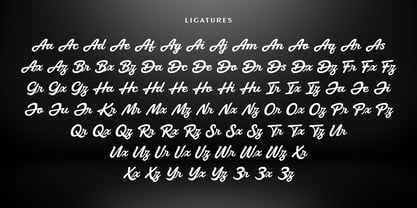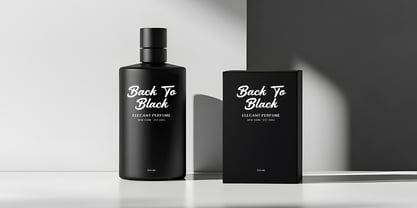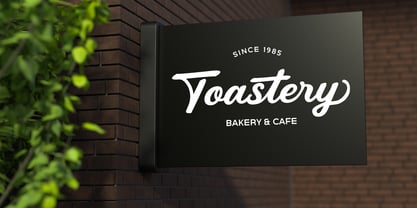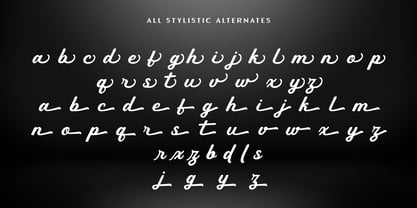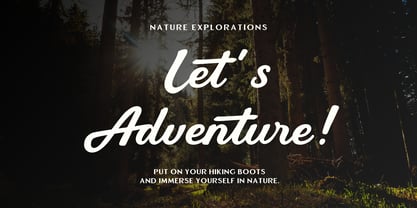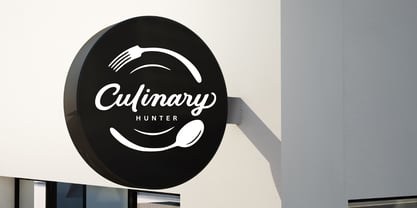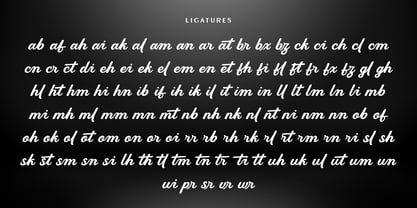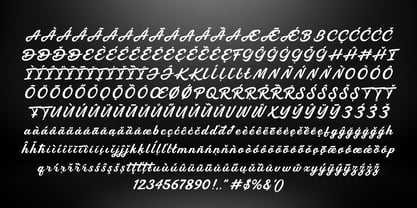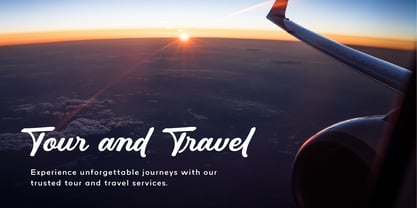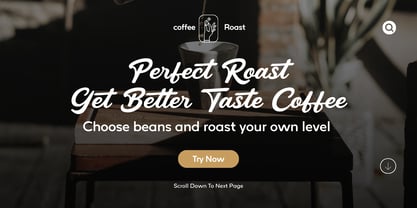
Regaltion Highter
Regaltion Highter is a bold script typeface designed to combine expressive handwritten aesthetics with strong visual presence. The typeface features bold strokes and fluid connections, producing a confident and elegant typographic rhythm suitable for contemporary branding and display applications. The font includes 210 carefully crafted ligatures that allow natural letter connections, enhancing the authenticity of the handwritten style. Additionally, 62 alternate characters provide expanded stylistic possibilities for designers who want to create distinctive and personalized typographic compositions. With multilingual support covering 89 languages, Regaltion Highter is suitable for a wide range of global design projects. Ideal applications include branding, logos, packaging, editorial headlines, social media graphics, wedding stationery, and fashion-related designs. The combination of bold structure, elegant curves, and extensive OpenType features makes Regaltion Highter a versatile script typeface for impactful and refined typography.